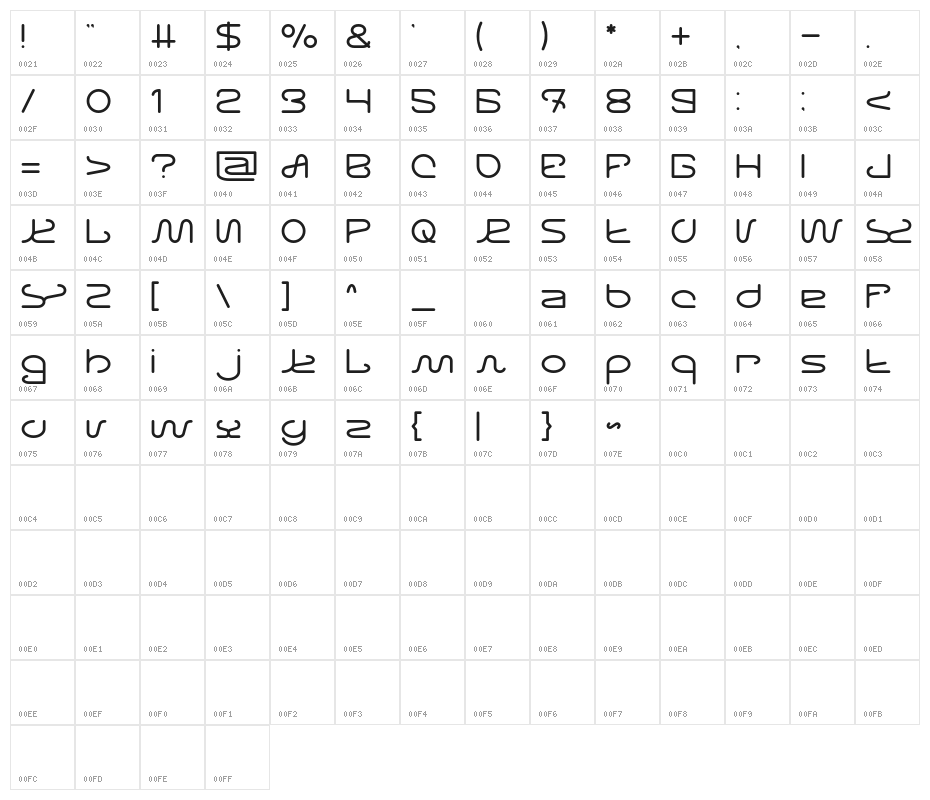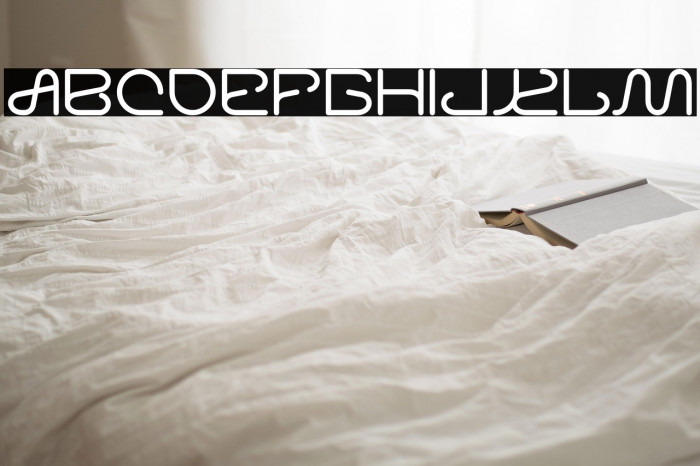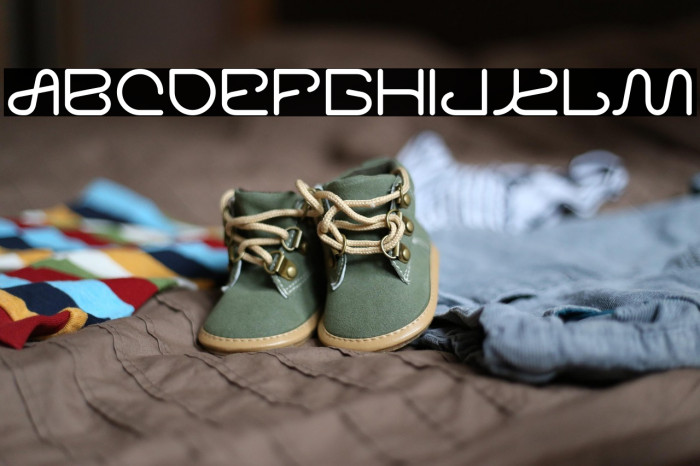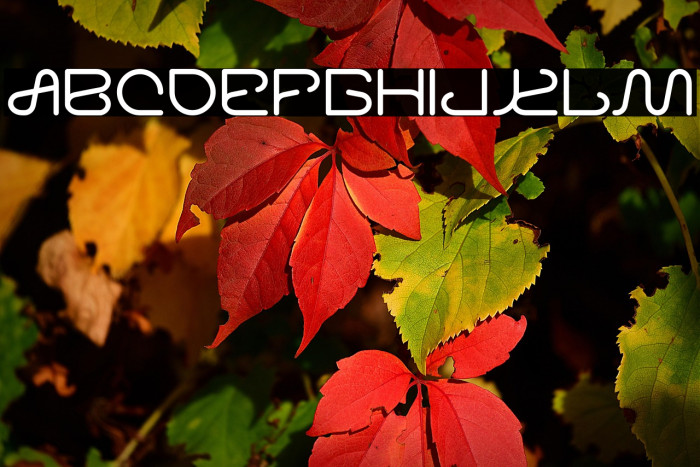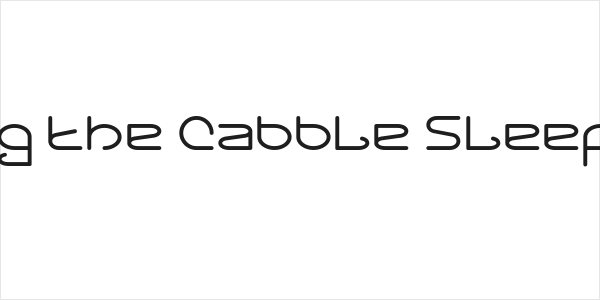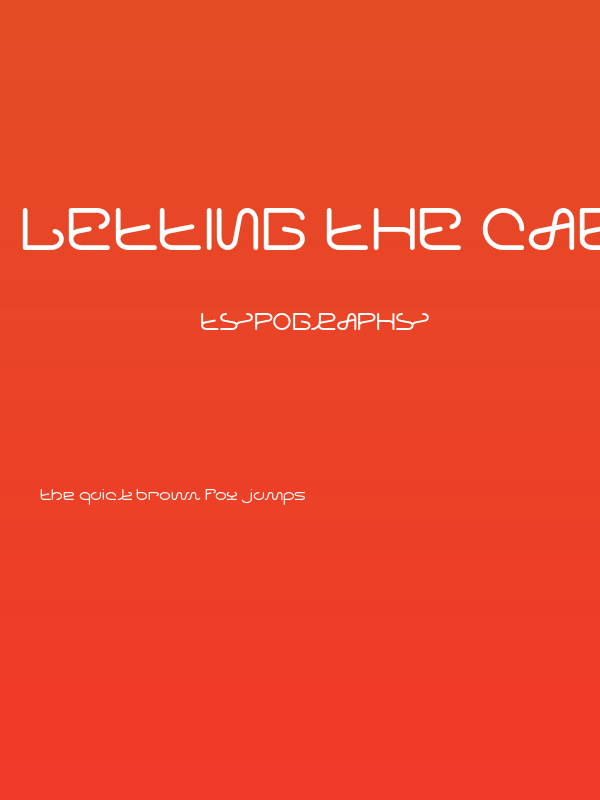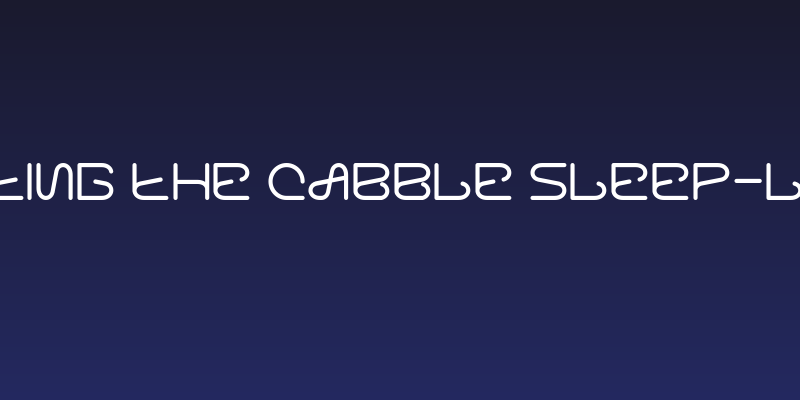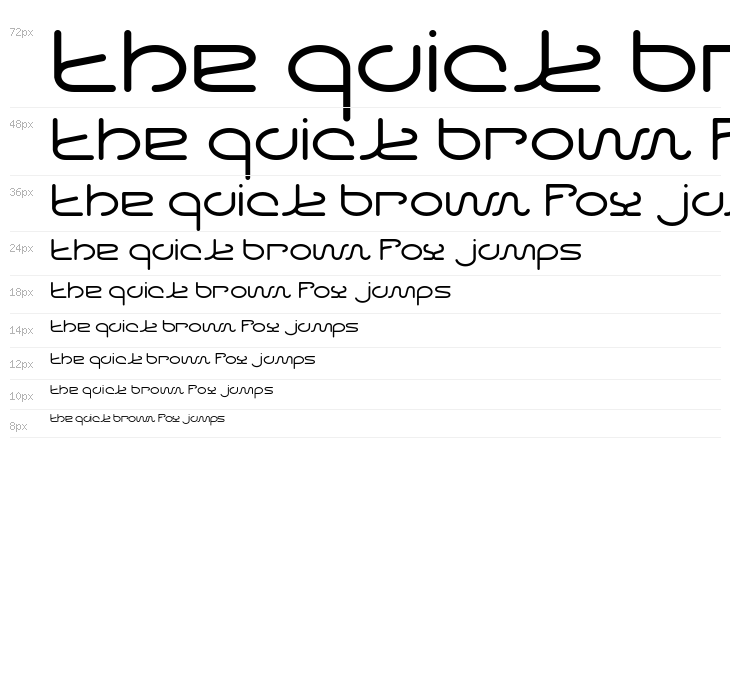
Letting The Cabble Sleep-Light Font
Letting The Cabble Sleep-Light Description
This font features a unique and modern design with a playful twist. The characters are constructed with smooth, continuous lines that create a sense of fluidity and movement. The uppercase letters have a distinct geometric style, while the lowercase letters maintain a consistent flow with subtle curves. The numbers and special characters follow the same design principles, ensuring a cohesive look across all elements. The font's overall appearance is both futuristic and approachable, making it suitable for a variety of creative projects.